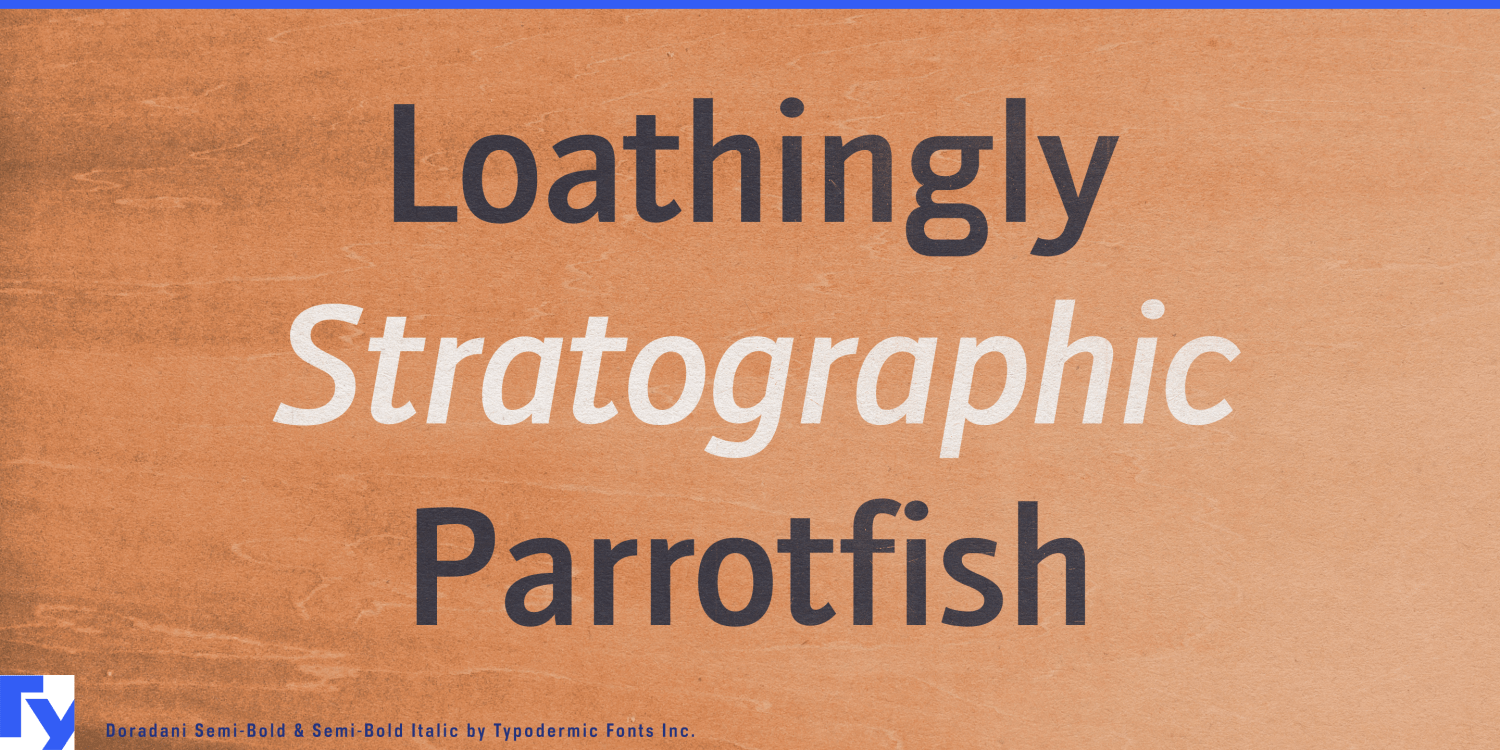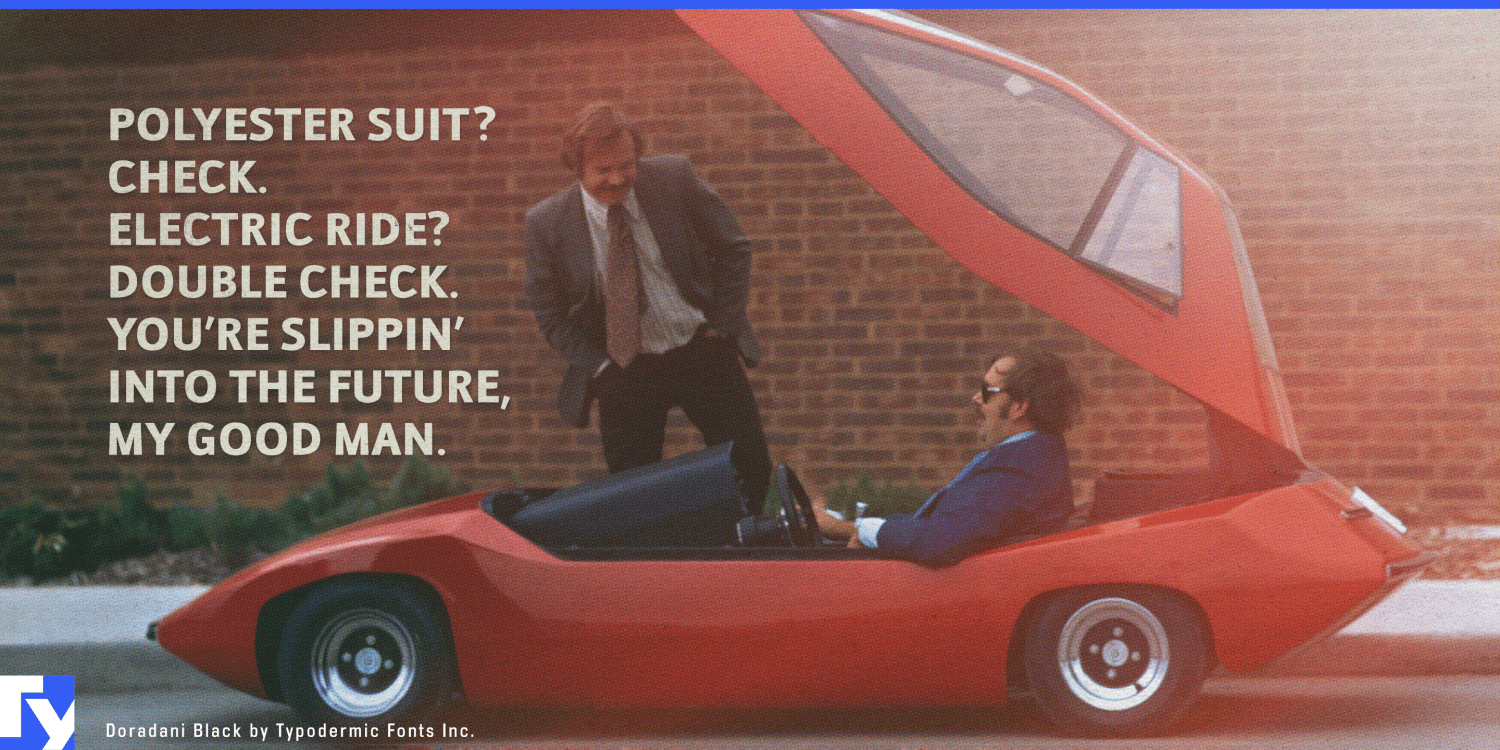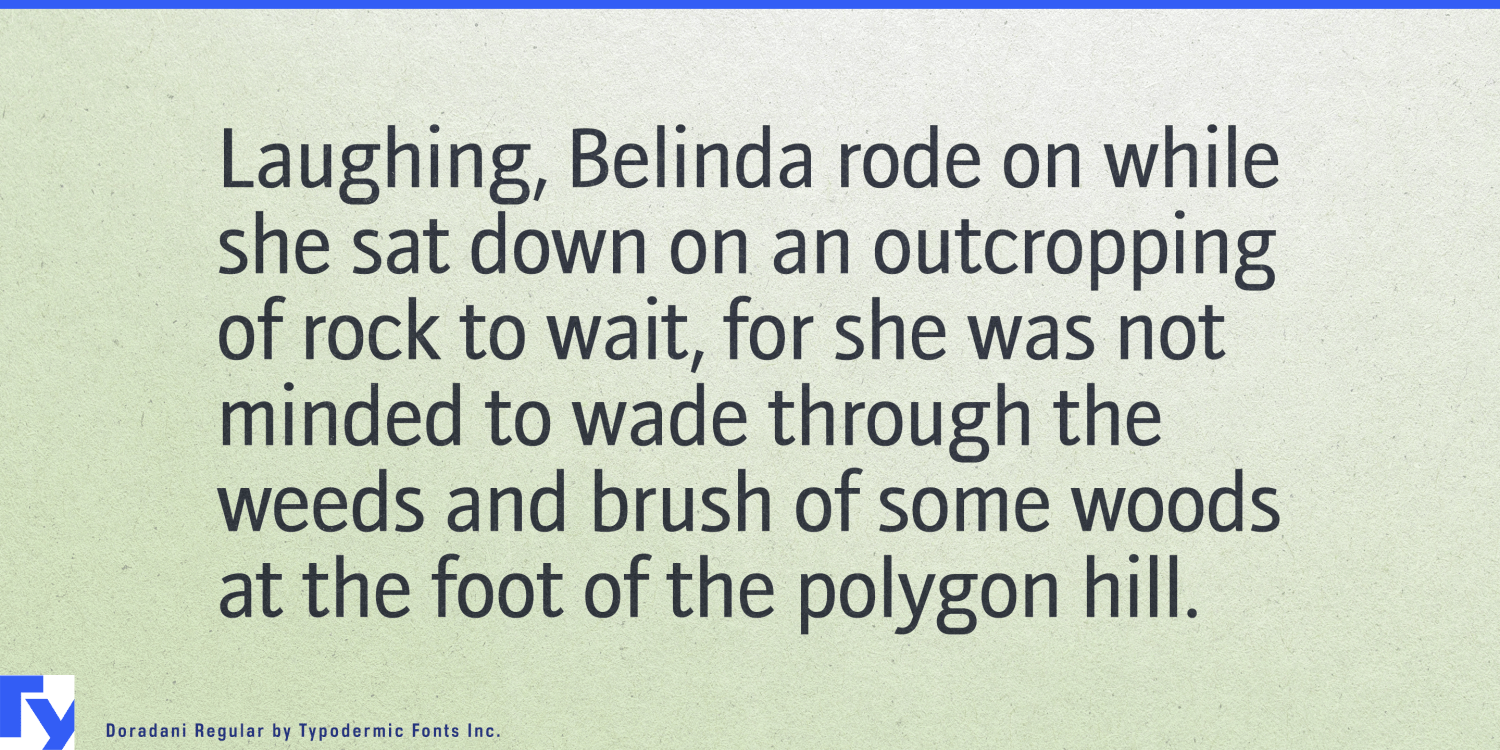
About Doradani
Doradani: The typeface that dances between centuries. This Typodermic Fonts creation isn’t just a revival—it’s a renaissance, breathing new life into the timeless proportions of Franklin Gothic while embracing the openness of modern…